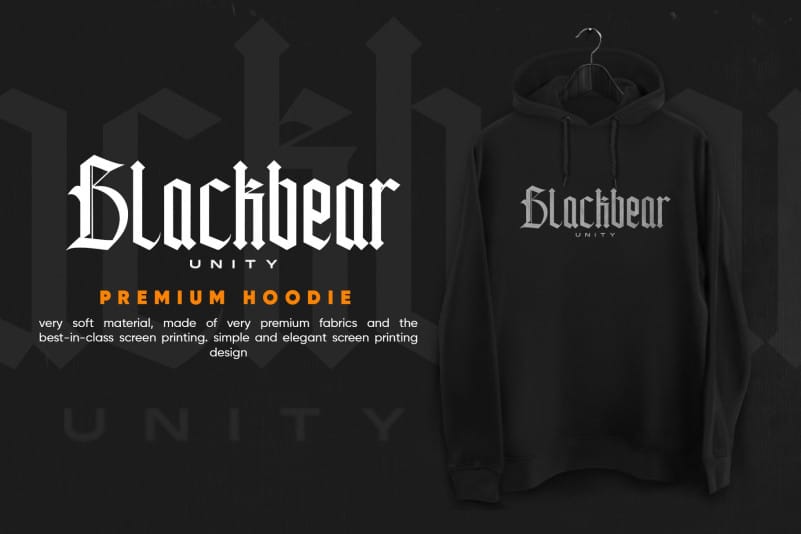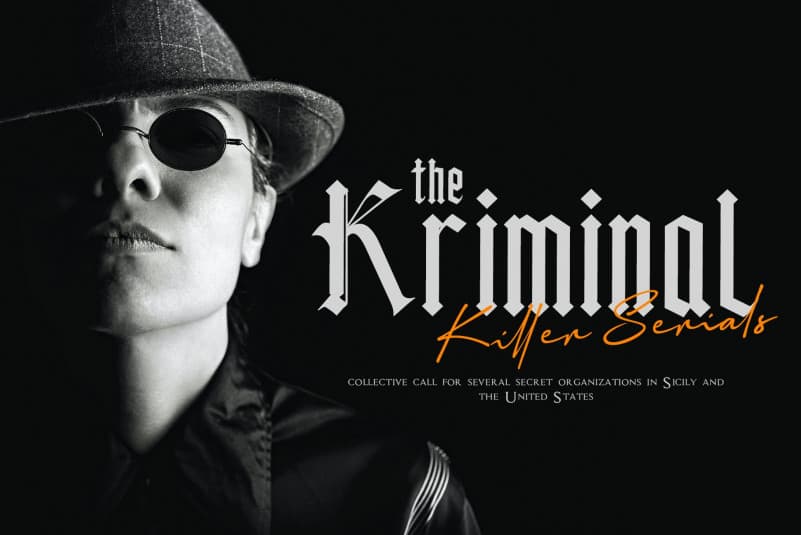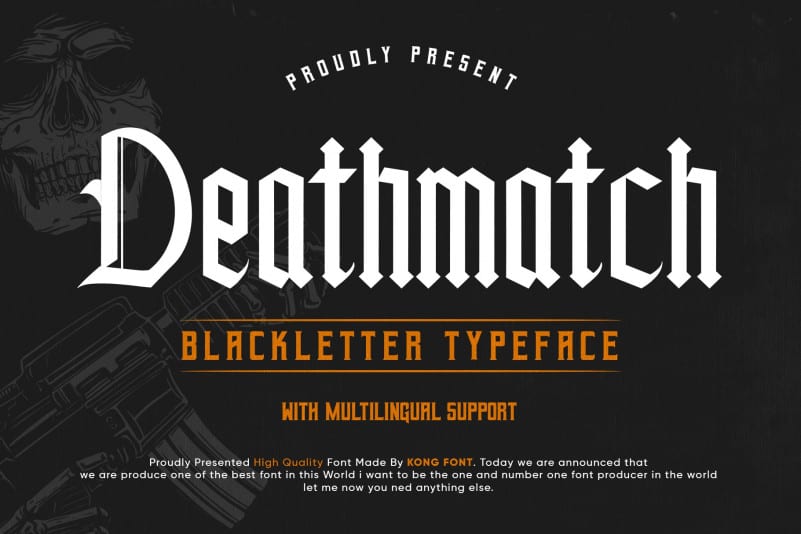
Deathmatch Display Font is an incredibly authentic and incredibly blackletter typeface. Add this font to your favorite creative ideas and notice how it makes them stand out!. Made from font designer named fontkong. Suitable for any design needs : logo, branding, modern advertising design, cartoon, animation, kid book, logos, poster quote, book / cover Title, editorial design, website / blog, card, custom mug, pillow, t-shirts, and any hand-lettered needs.
Deathmatch